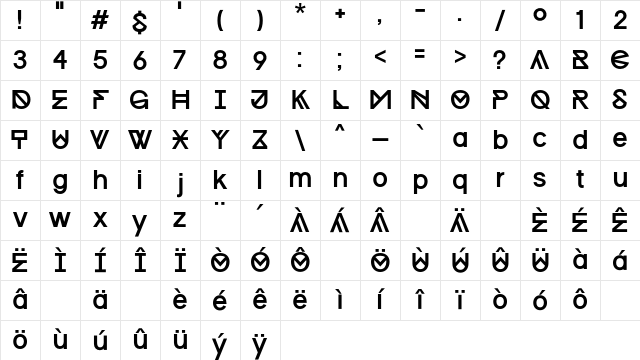
Progress Regular Free Font
Progress Regular
Foundry: PYRS Fontlab Ltd. / Made with FontLab
Design Context for Progress
Progress is a composed and adaptable typeface that performs quietly and consistently across a wide range of design contexts.
Who designed the Progress Regular font?
This font was published by PYRS Fontlab Ltd. / Made with FontLab. Check the technical specs section for copyright and designer details.